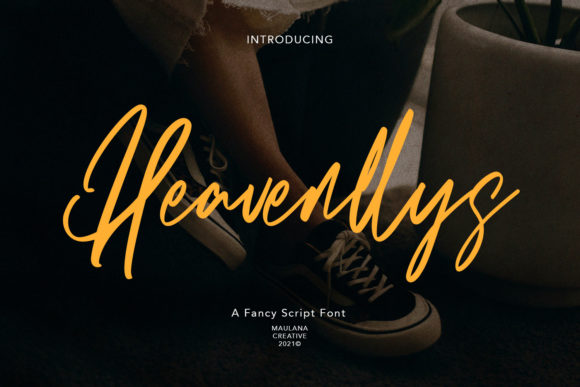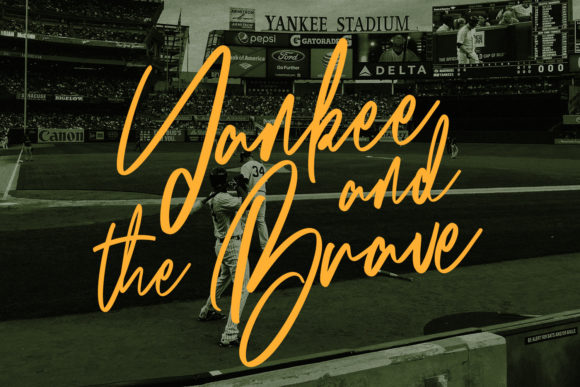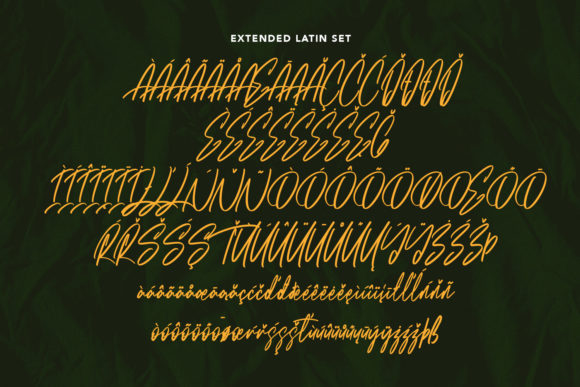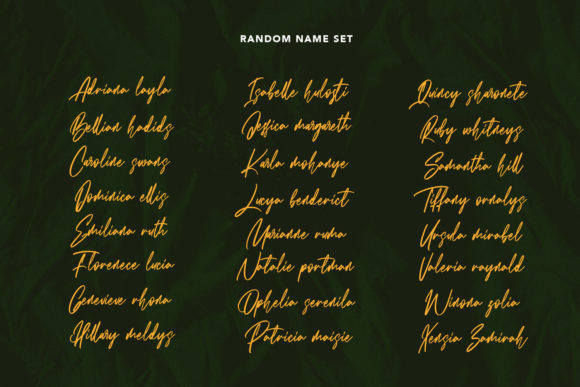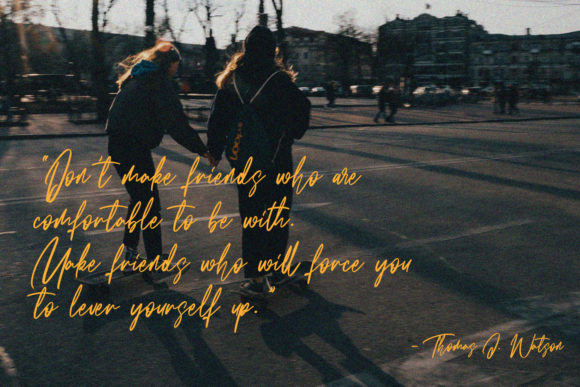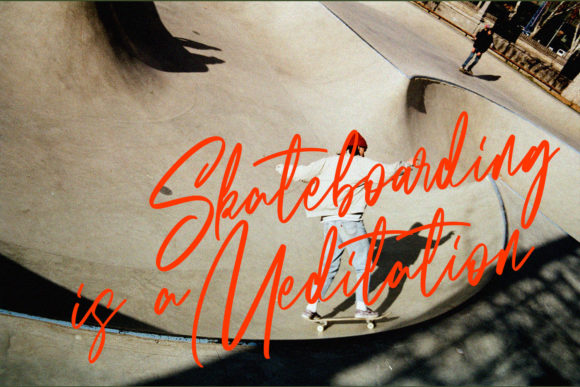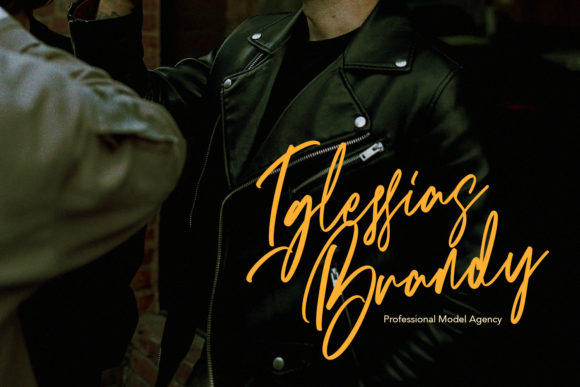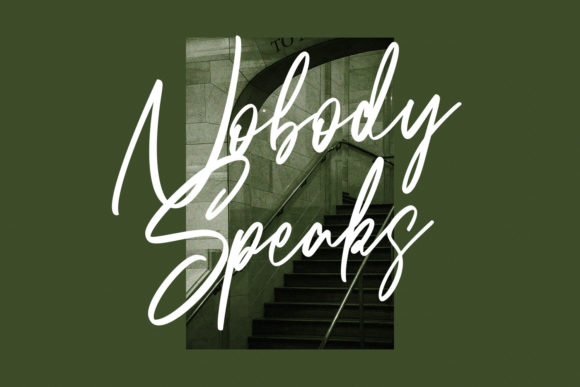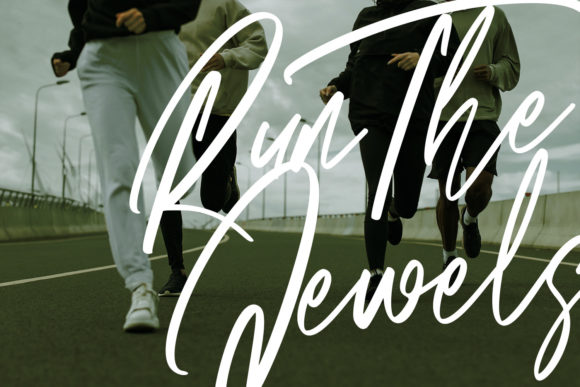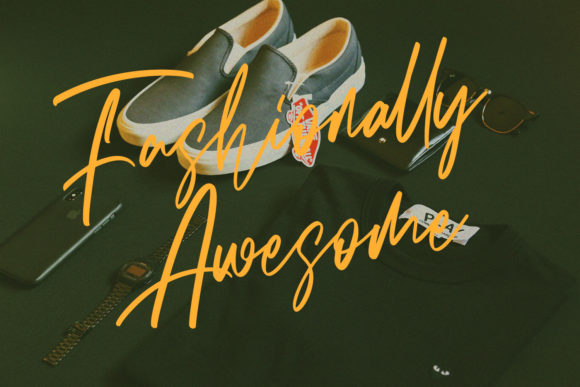
Heavenllys Font
About Heavenllys Font
Heavenllys is a fancy, casual, and thin lettered script font that adds a stylish touch to your designs. With its elegant and delicate letterforms, this font is perfect for creating stunning wedding invitations, beautiful stationary art, eye-catching social media posts, and more.
When it comes to wedding invitations, Heavenllys brings a touch of sophistication and romance. Its thin and casual lettering creates a modern and trendy look, setting the tone for an elegant and memorable wedding celebration. Whether you’re designing invitations for a classic wedding or a more whimsical event, Heavenllys will add a touch of charm and elegance to your designs.
For stationary art, Heavenllys offers a versatile style that can be used for various purposes. Whether you’re creating personalized note cards, art prints, or letterheads, this font brings a sense of grace and refinement. Its thin letterforms and casual script style add a delicate and artistic touch to your designs, making them visually captivating and appealing.
When it comes to social media posts, Heavenllys stands out with its eye-catching and fashionable look. Whether you’re sharing inspiring quotes, promoting products, or engaging with your audience, this font will capture attention and make your posts stand out. Its thin and stylish lettering adds a touch of elegance and modernity to your social media presence.
The versatility of Heavenllys extends beyond wedding invitations, stationary art, and social media posts. It can be used for various other design projects, such as branding materials, logo designs, packaging, and more. Its fancy and casual style brings a sense of sophistication and style to any design, making it suitable for a wide range of creative endeavors.
In summary, Heavenllys is a fancy, casual, and thin lettered script font that adds a stylish touch to your designs. Whether you’re creating wedding invitations, stationary art, social media posts, or other creative projects, this font brings elegance, versatility, and modernity. Fall in love with its incredibly stylish style and let it enhance your designs in remarkable ways.